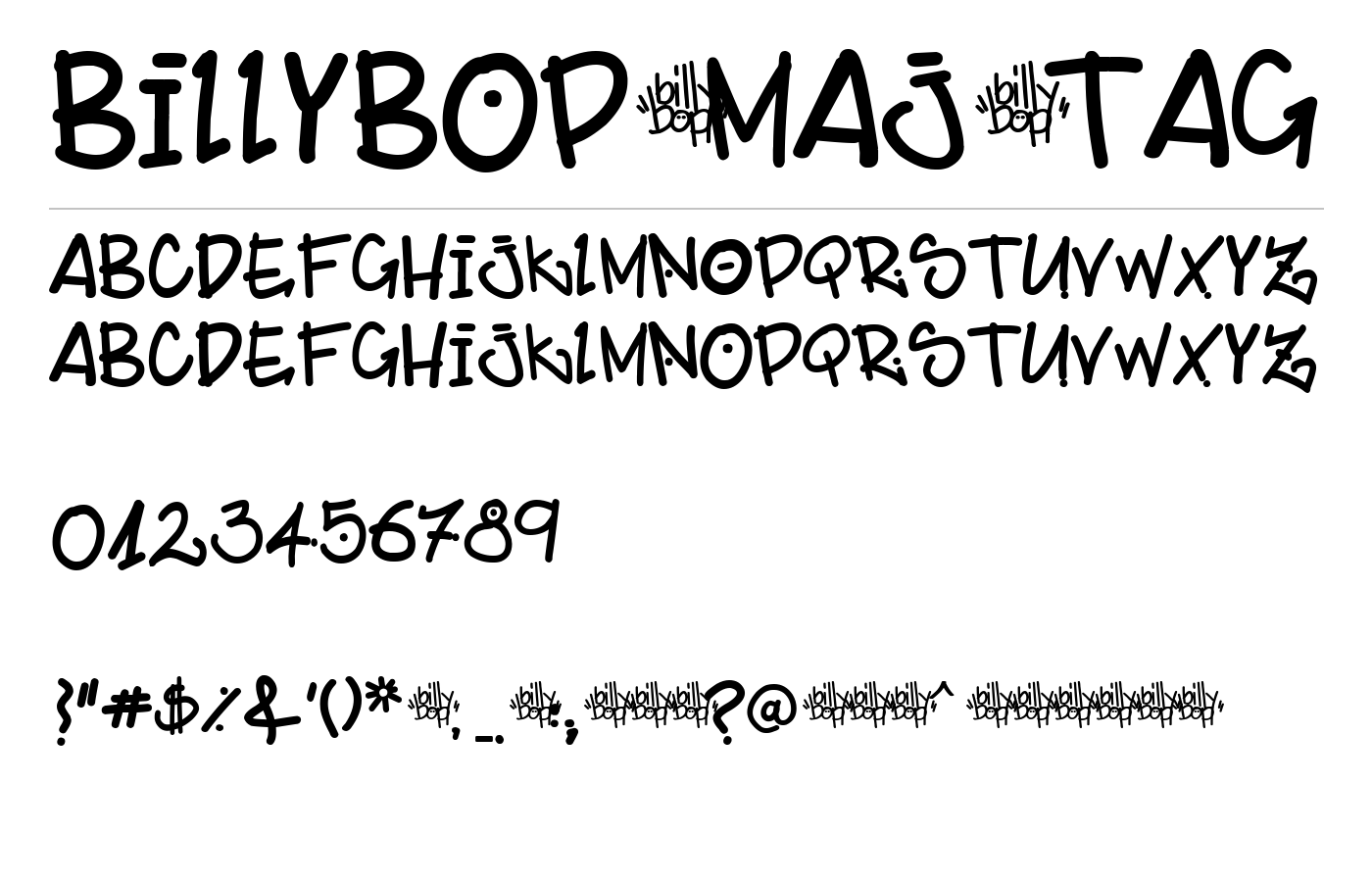
BillyBop_maj_tag is a playful, hand-drawn sans serif font with a casual, informal vibe. Its uneven strokes and quirky character shapes make it perfect for fun, youthful designs and creative projects like posters, logos, or kids’ products where a relaxed, friendly feel is desired. This font shines in headlines and display uses, adding personality and charm without taking itself too seriously.
BillyBop_maj_tag Font
About BillyBop_maj_tag Font